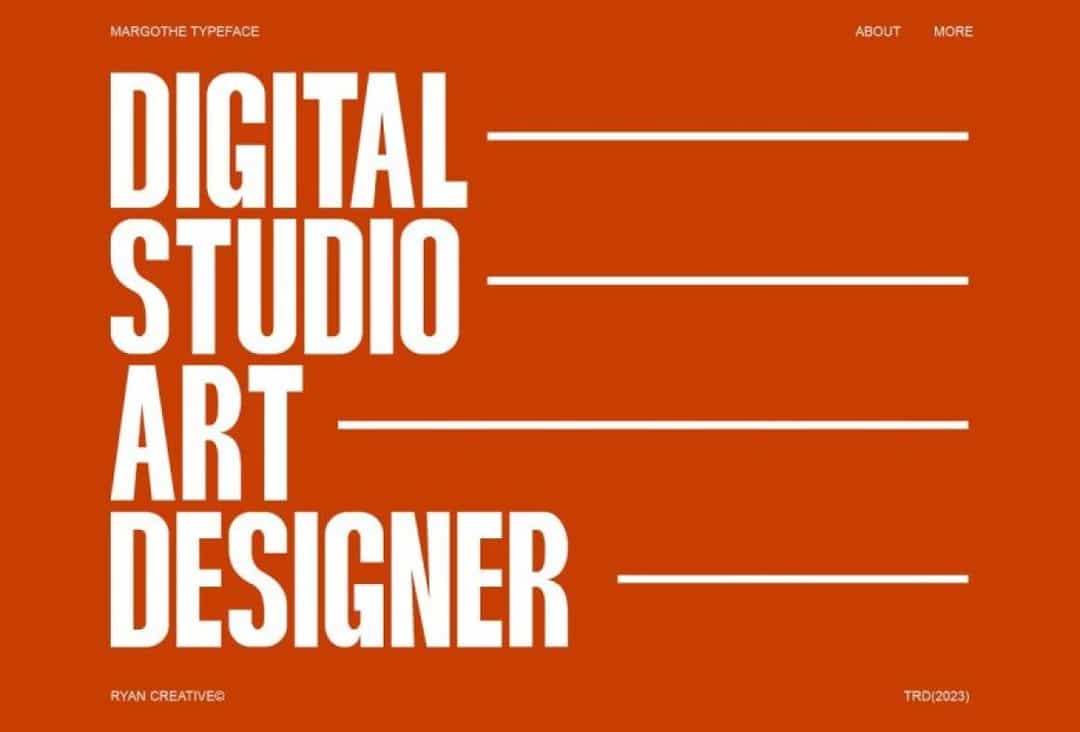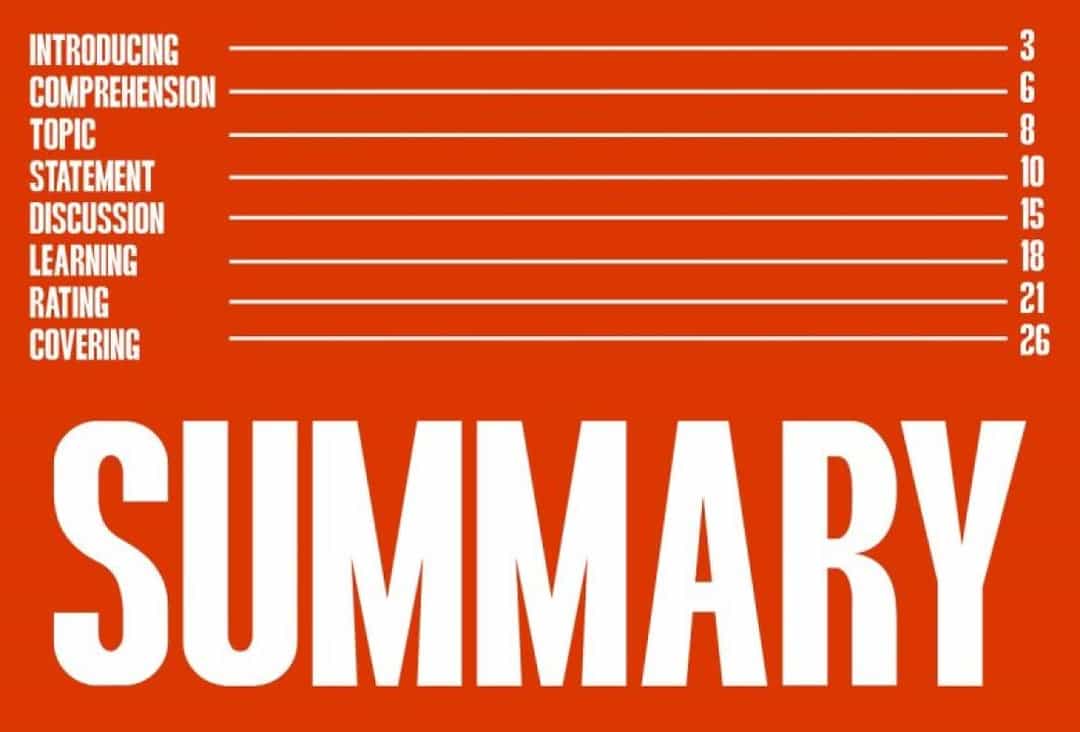
Marghote features an easy design and bold and condensed sans serif font to create a minimalist yet easy reading experience. Ideal for contemporary designs such as fashion magazines, posters or digital mediums.